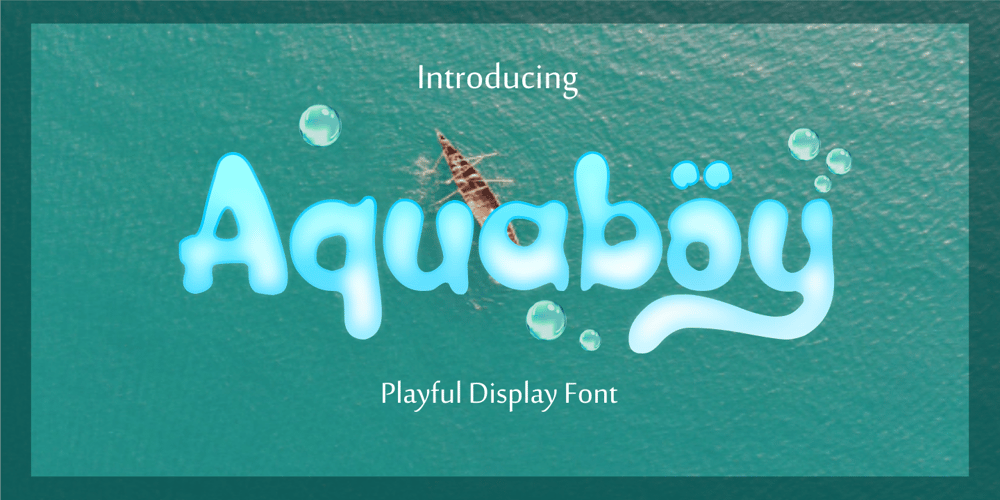
Aquaboy
Aquaboy font
Aquaboy Font Family was designed by Ahmad Zulfikar Ali and published by ZetDesign. Aquaboy contains 1 styles and family package options. Aquaboy fonts are display fonts that are inspired from water, bringing you to a feeling of relaxation and peace. This font is very suitable for use in water nuanced design work. let your mind flow by using this nice font. Thanks …!